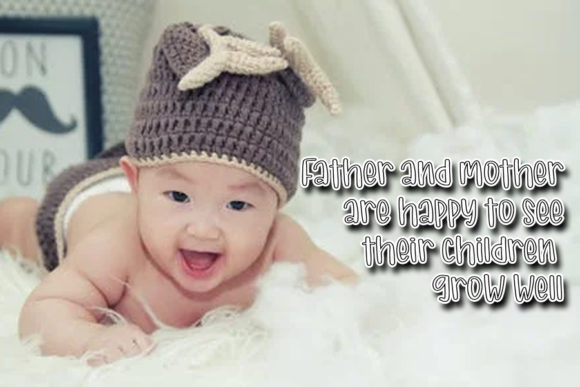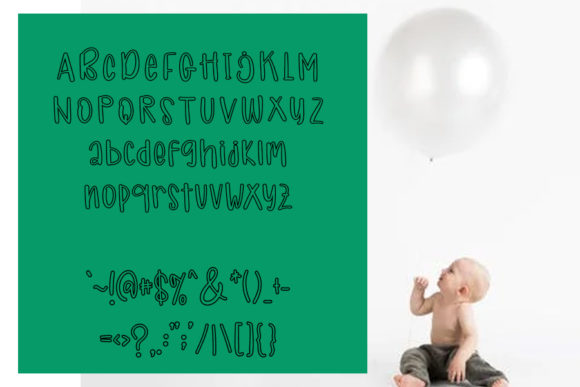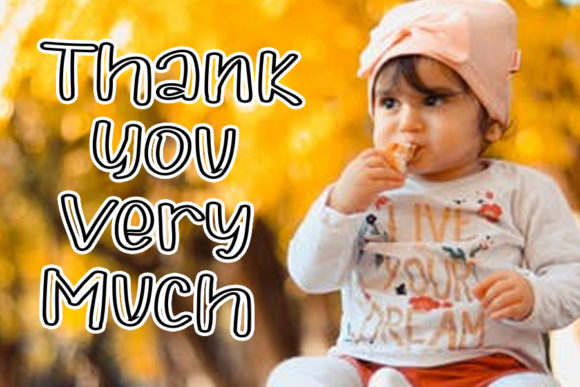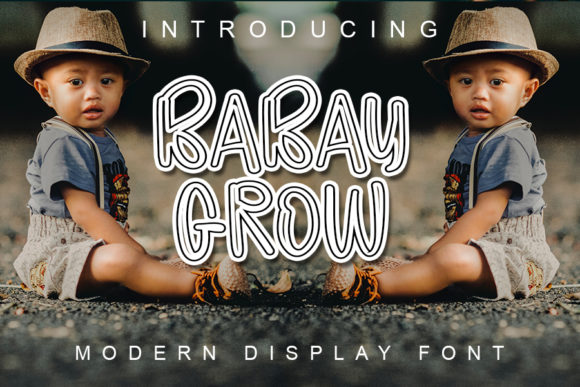
Baby Grow Font: The Perfect Addition to Your Design Arsenal
In the world of design, fonts play a crucial role in conveying the intended message and adding aesthetic appeal to your creations. If you’re a designer, crafter, or DIY enthusiast looking for a versatile and trendy font, look no further than Baby Grow Font. This neat outlined display font has been making waves in the design community, and for good reason. In this article, we’ll dive into the features, benefits, and uses of Baby Grow Font, and explore why it’s the perfect addition to your design arsenal.
What is Baby Grow Font?
Baby Grow Font is a modern, outlined display font that boasts a perfect blend of trendiness and elegance. Its unique design makes it an excellent choice for a wide range of projects, from digital designs and presentations to crafting, greeting cards, and more. The font’s clean lines, precise outlines, and balanced proportions make it easy to read and visually appealing.
Key Features of Baby Grow Font
- Outlined Design: Baby Grow Font features a beautiful outlined design that adds a touch of sophistication to your projects.
- Trendy and Modern: The font’s modern design makes it perfect for projects that require a fresh and contemporary look.
- Versatile: Baby Grow Font is suitable for a wide range of projects, including digital designs, presentations, crafting, and more.
- Easy to Read: The font’s clean lines and balanced proportions make it easy to read, even at smaller sizes.
Benefits of Using Baby Grow Font
So, why should you choose Baby Grow Font for your next project? Here are just a few benefits of using this amazing font:
- Adds Visual Appeal: Baby Grow Font adds a touch of elegance and sophistication to your projects, making them more visually appealing.
- Enhances Creativity: The font’s unique design and versatility inspire creativity and help you think outside the box.
- Saves Time: With Baby Grow Font, you can create professional-looking projects in no time, saving you time and effort.
- Perfect for DIY Projects: The font is ideal for DIY enthusiasts and crafters who want to add a personal touch to their projects.
Uses of Baby Grow Font
Baby Grow Font is an incredibly versatile font that can be used in a wide range of projects, including:
- Digital Designs: Use Baby Grow Font to create stunning digital designs, such as social media graphics, blog posts, and more.
- Presentations: Add a touch of elegance to your presentations with Baby Grow Font.
- Crafting: The font is perfect for crafters who want to add a personal touch to their projects, such as scrapbooking, card making, and more.
- Greeting Cards: Create beautiful greeting cards with Baby Grow Font.
Tips for Using Baby Grow Font
Here are a few tips for using Baby Grow Font effectively:
- Experiment with Colors: Try pairing Baby Grow Font with different colors to create unique and eye-catching designs.
- Play with Sizes: Experiment with different font sizes to add visual interest to your projects.
- Combine with Other Fonts: Try pairing Baby Grow Font with other fonts to create interesting and dynamic designs.
In conclusion, Baby Grow Font is an excellent addition to any design arsenal. Its unique outlined design, trendy and modern look, and versatility make it perfect for a wide range of projects. Whether you’re a designer, crafter, or DIY enthusiast, Baby Grow Font is sure to inspire your creativity and help you create stunning designs. So why wait? Download Baby Grow Font today and take your designs to the next level!